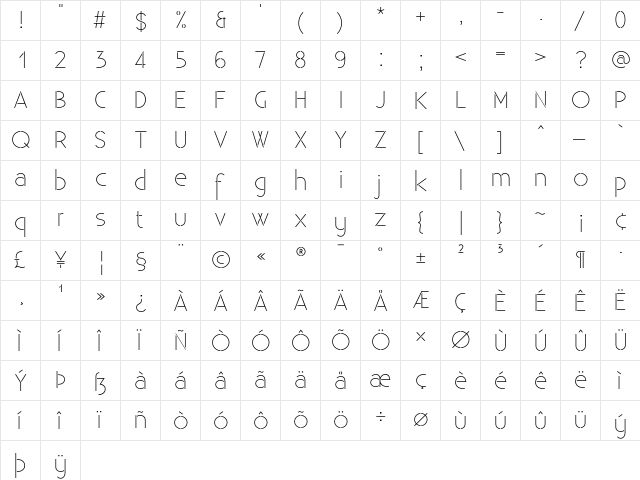
Existence Stencil Light Regular
| Foundry | Yeah Noah |
| Designer | Yeah Noah |
Design Context for Existence Stencil Light Typeface
Existence Stencil Light borrows the utilitarian aesthetic of stencil lettering, with its characteristic cutaways and no-frills construction lending an industrial edge. The delicate stroke weight brings airiness and refinement to layouts.
Ideal for industrial branding, streetwear, military-adjacent aesthetics, and urban signage projects.
Pro Tip: Pair Existence Stencil Light with raw, utilitarian design elements — exposed concrete textures, flat colour, and minimal ornamentation suit it well.